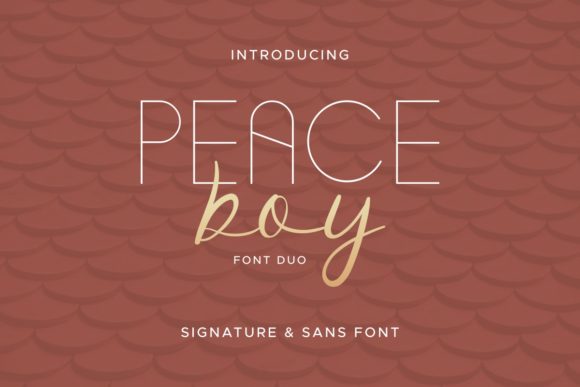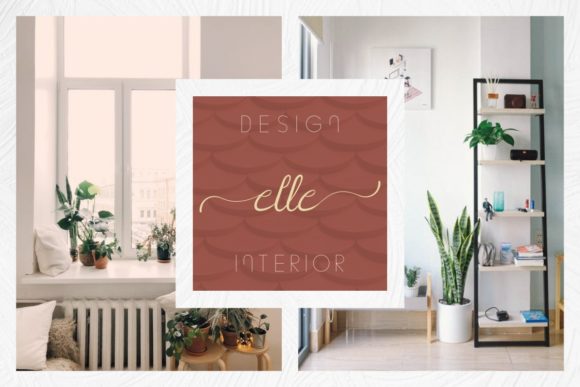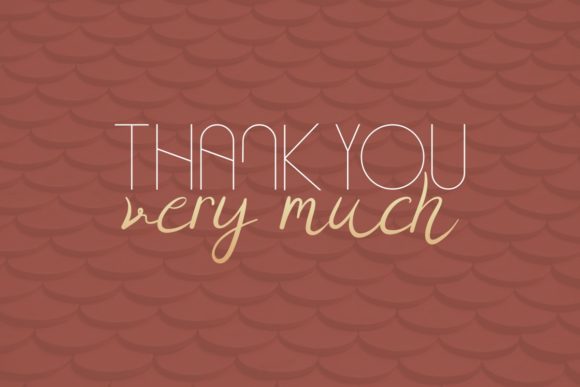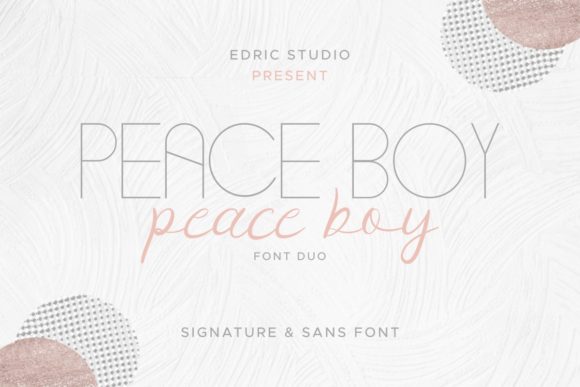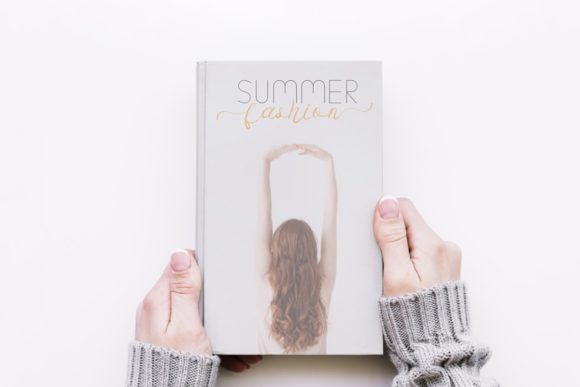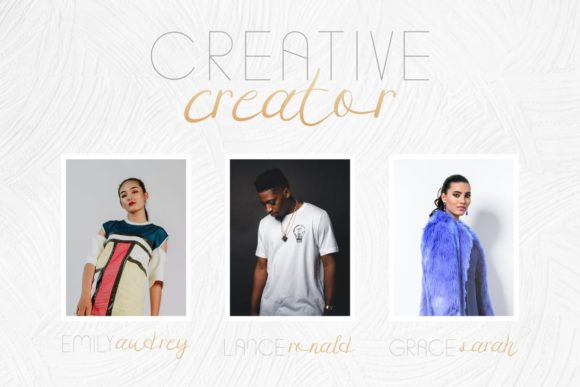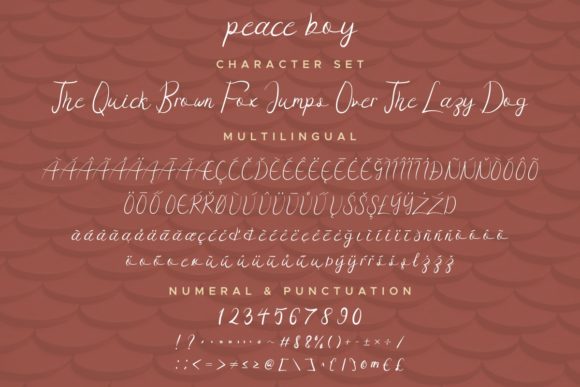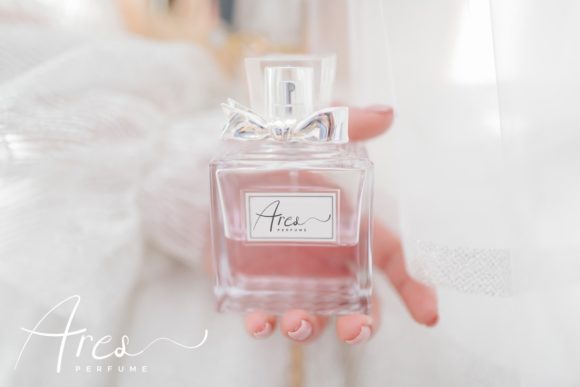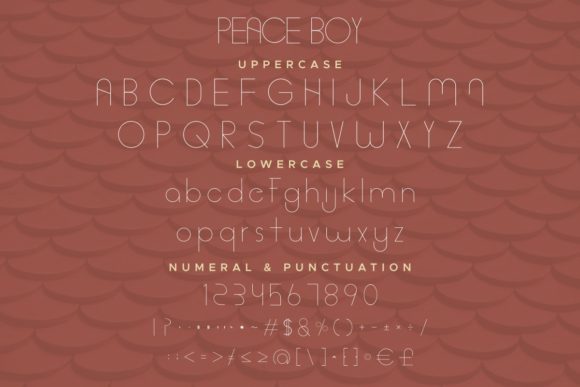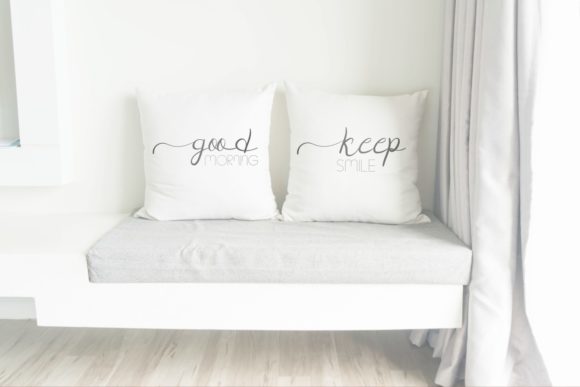
Peace Boy Font
About Peace Boy Font
Peace Boy is a spectacular duo font (sans and script). Incredibly versatile, this font fits a wide pool of designs, elevating them to the highest levels. Add this font to your favorite creative ideas and notice how it makes them come alive!